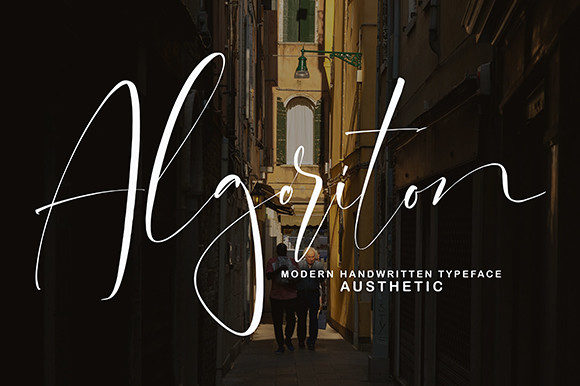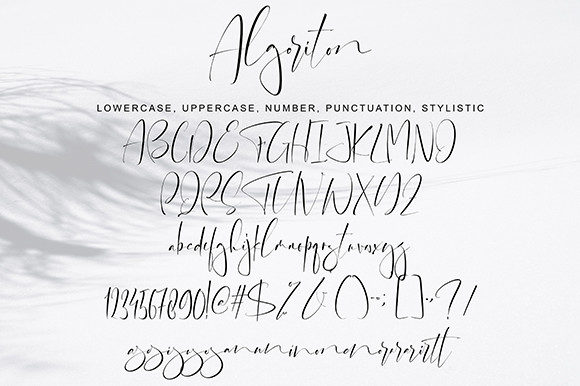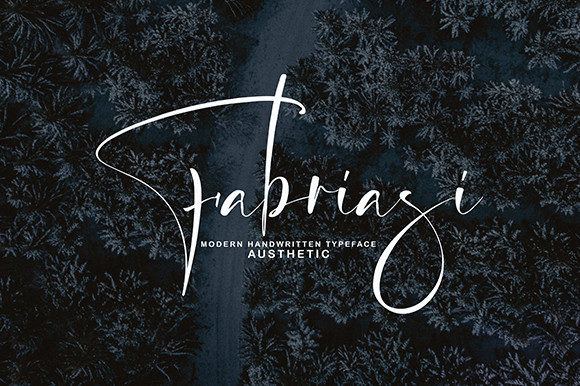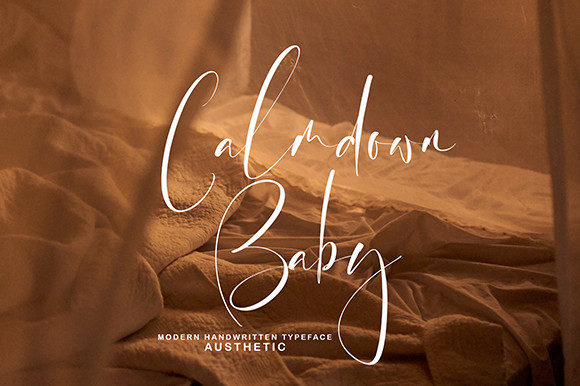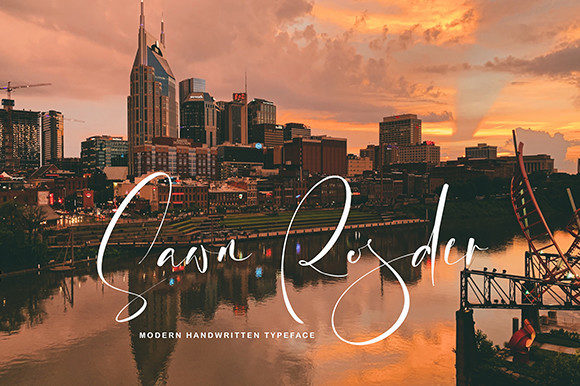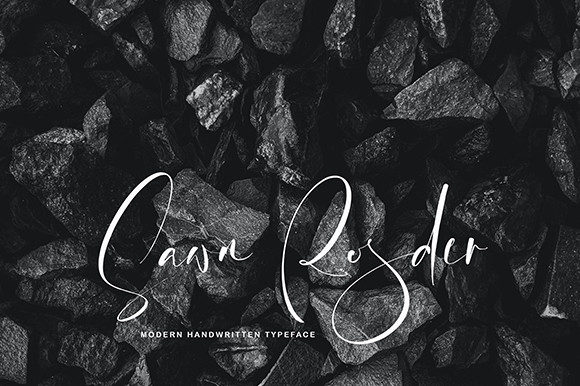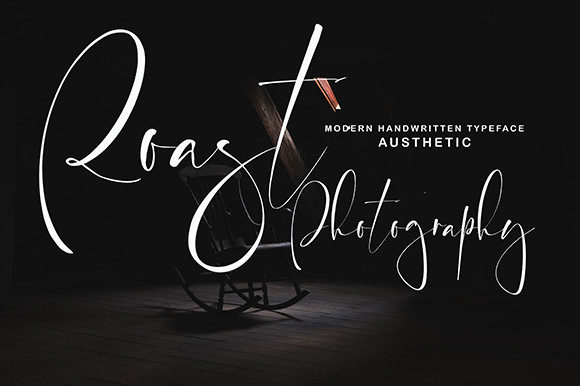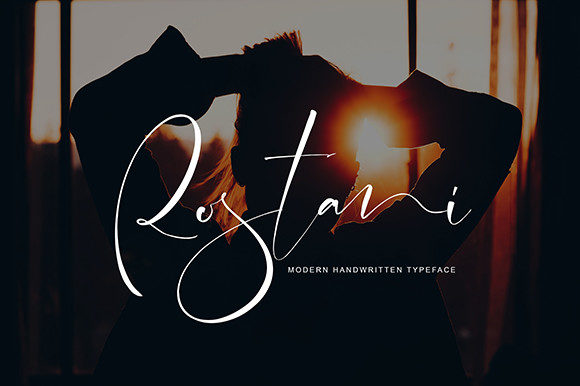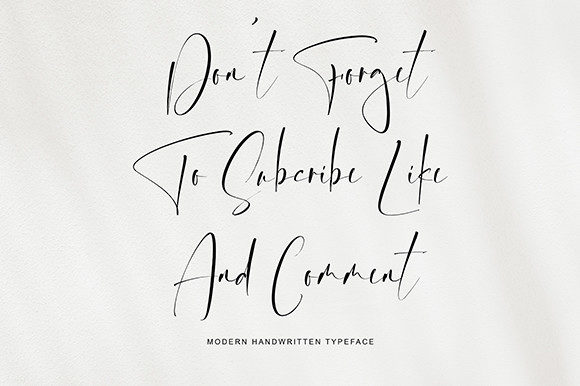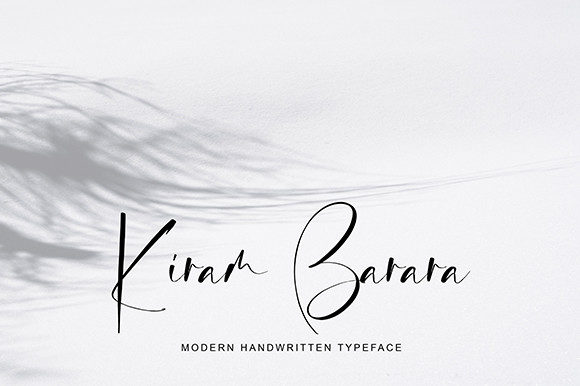
Algoriton Font
Algoriton is a beautiful handwritten font with a new style and feel. It will be perfect for many different projects such as quotes, logos, blog headers, posters, banding, letters, invitations, stationery, etc. Masterfully designed to become a true favorite, this font has the potential to bring each of your creative ideas to the highest level!